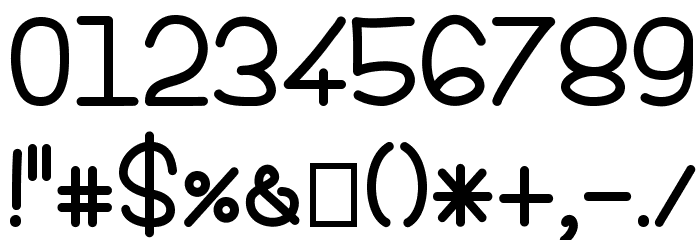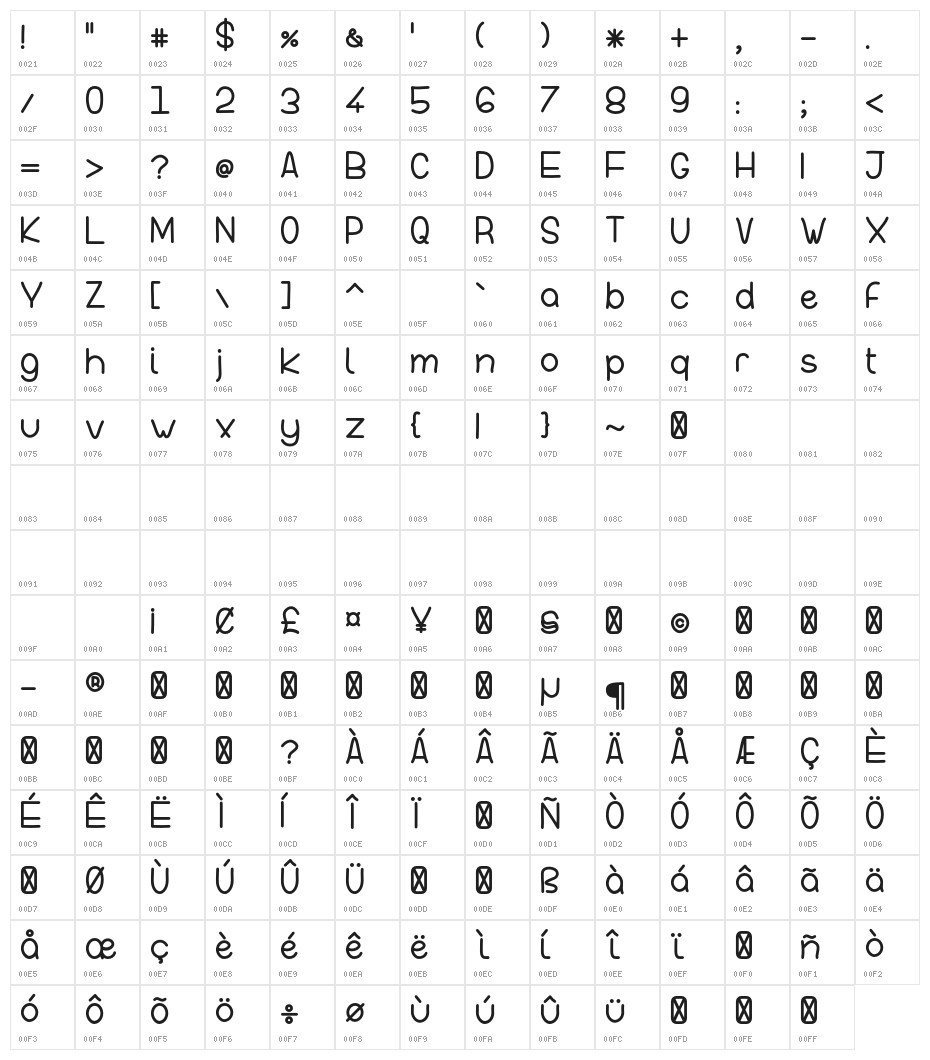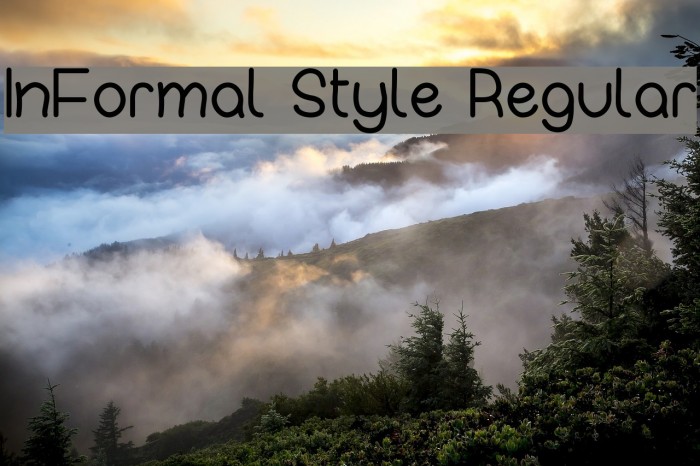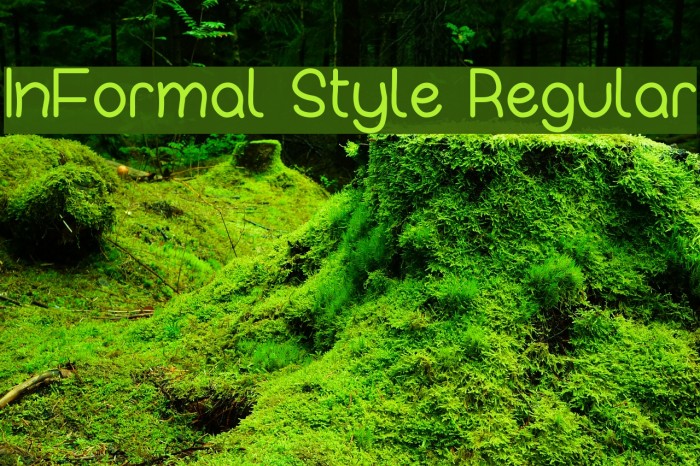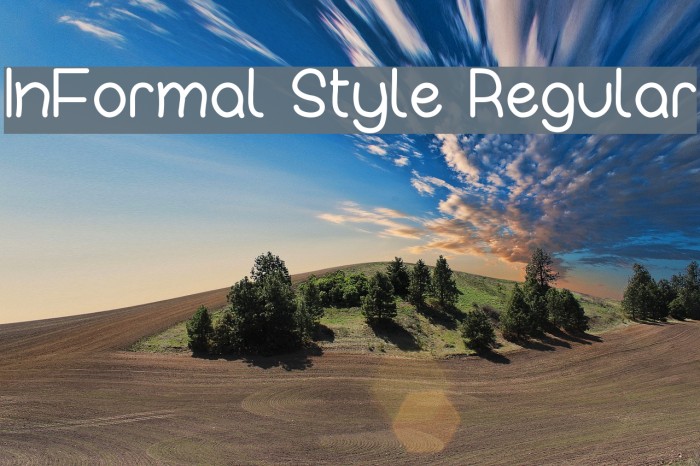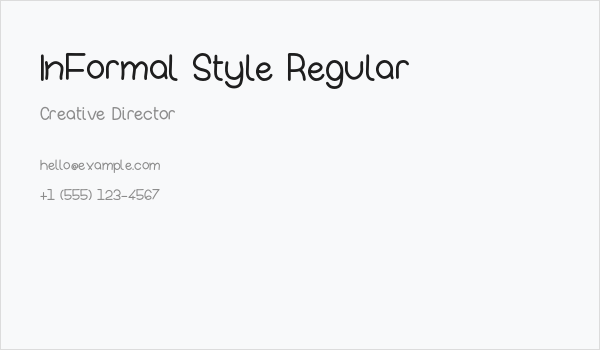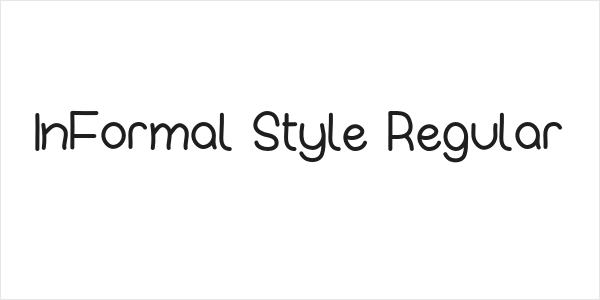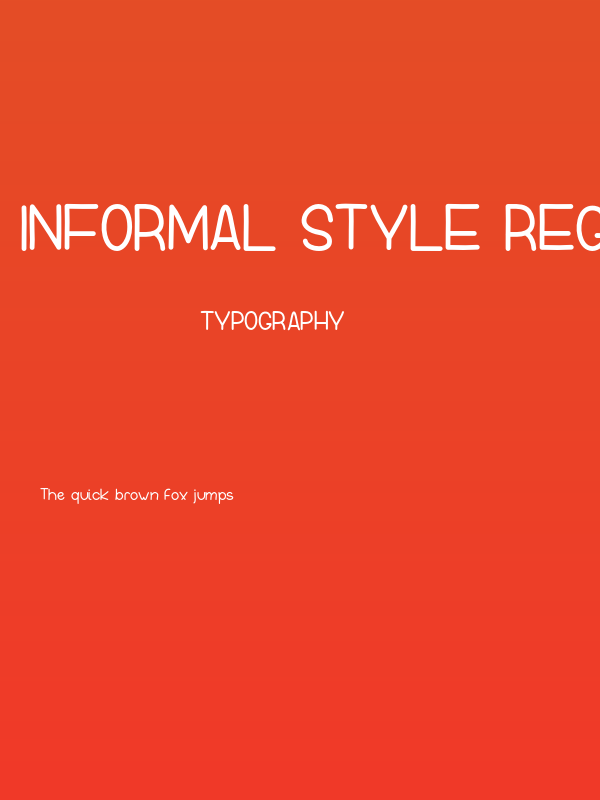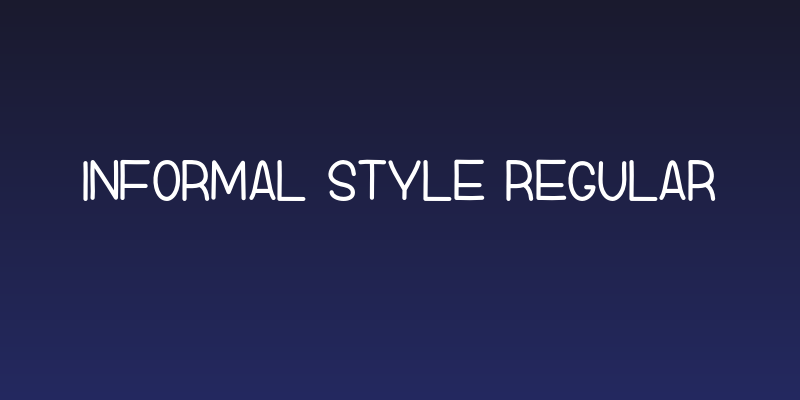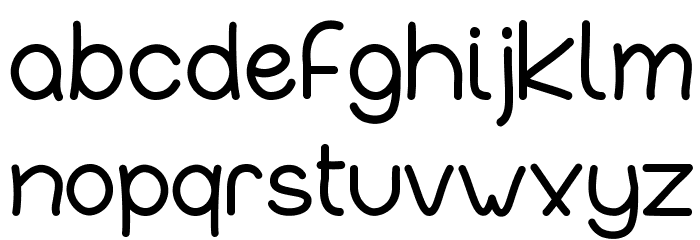
InFormal Style Regular Font
InFormal Style Regular Description
This font features a playful and informal style with rounded edges and a handwritten appearance. The characters are evenly spaced, giving it a clean and approachable look. The uppercase letters are bold and slightly taller than the lowercase, which are more rounded and softer in appearance. Numbers and special characters maintain the same playful style, making them easy to read while retaining the font's casual charm. The overall design is consistent, with a smooth flow that makes it suitable for friendly and informal communication.
| Use Case | Headlines, Logos, Informal text |
| Proposed Projects | Ideal for children's books, casual invitations, greeting cards, and playful branding projects. |